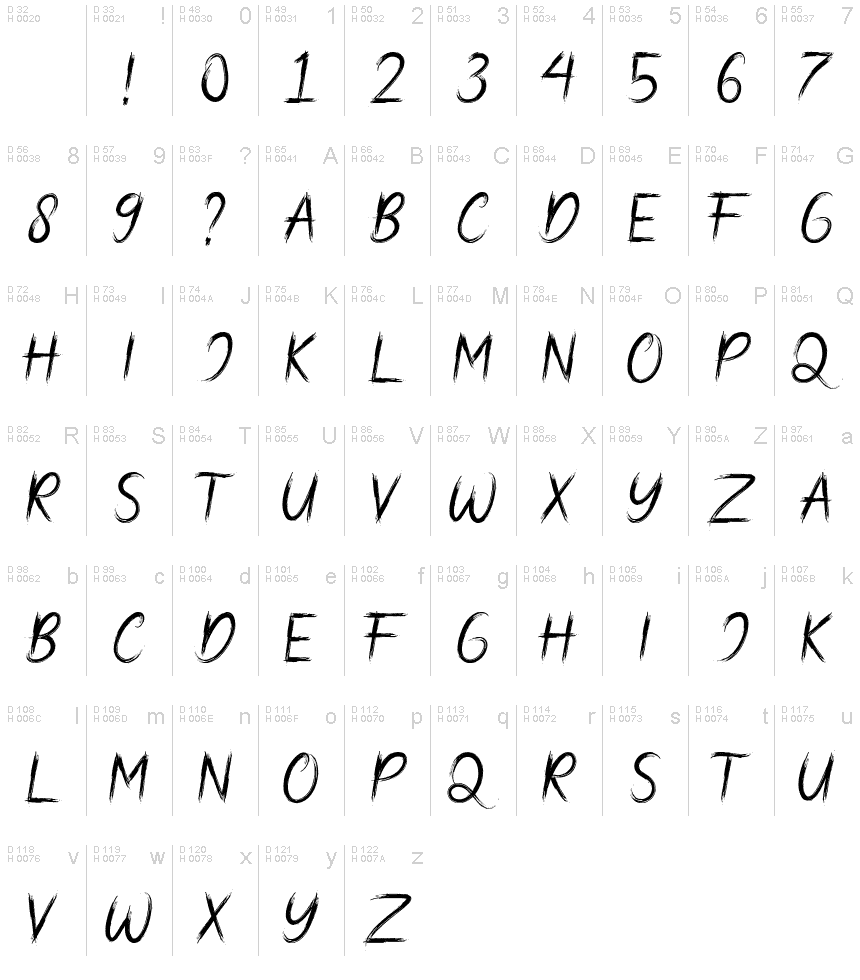
Bad Hunter Brush
Bad Hunter Brush is a captivating and versatile semi-light brush font designed by Abas Creative. With its expressive strokes and unique texture, this font exudes a sense of adventure and creativity. Its organic flow makes it perfect for projects that aim to evoke a rustic, handmade feel. Whether you're designing logos for outdoor expeditions, creating eye-catching social media graphics, or crafting bold headlines for magazines, Bad Hunter Brush will add an authentic touch to your work. Stand out from the crowd with this distinctive typeface that combines elegance with a hint of untamed wilderness.